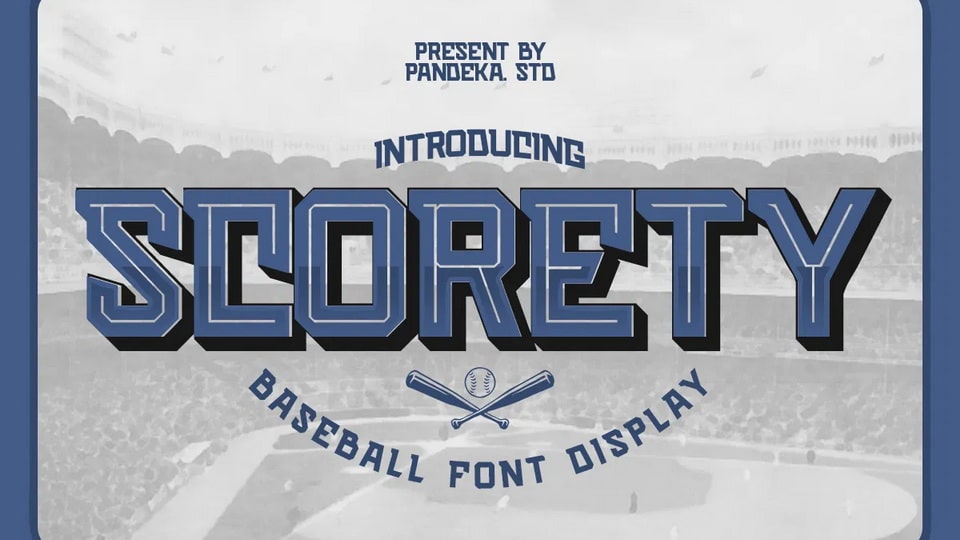
Download Scorety font, a baseball display typeface that commands attention with its bold, powerful aesthetic. Perfect for sports-themed designs, especially baseball, Scorety adds an energetic touch to your projects.